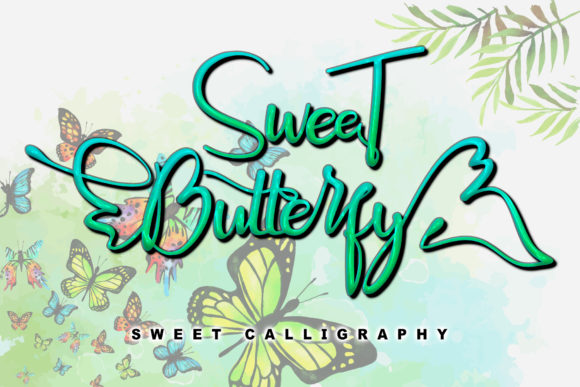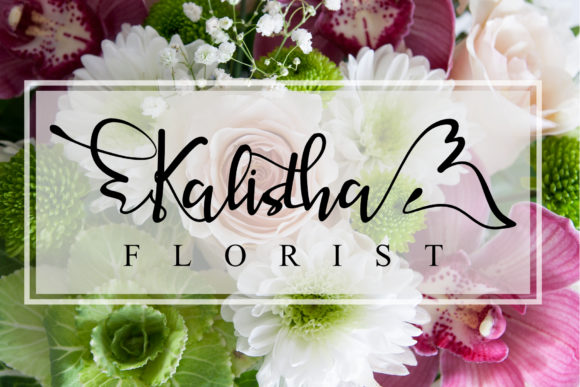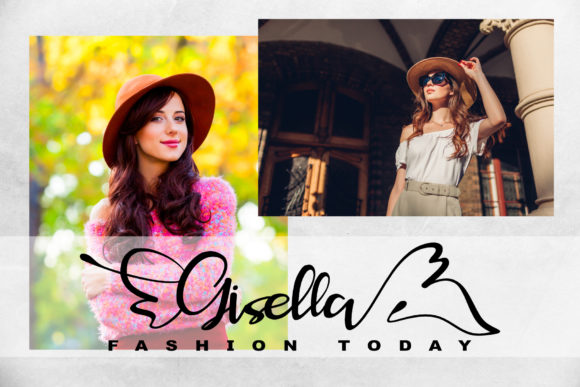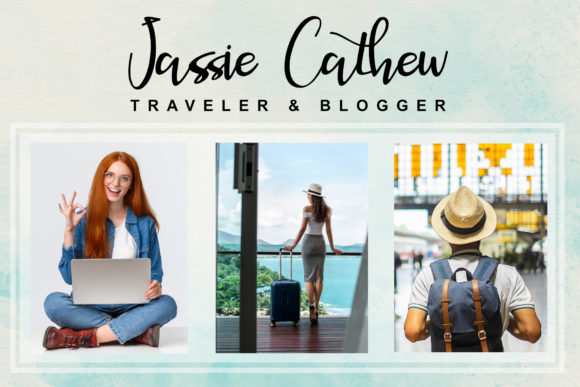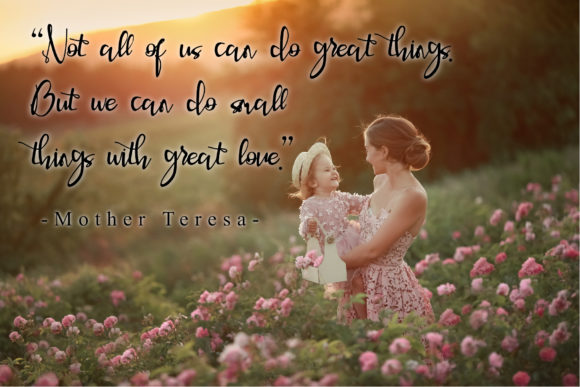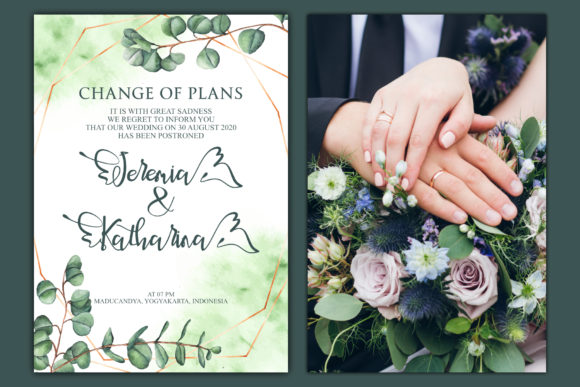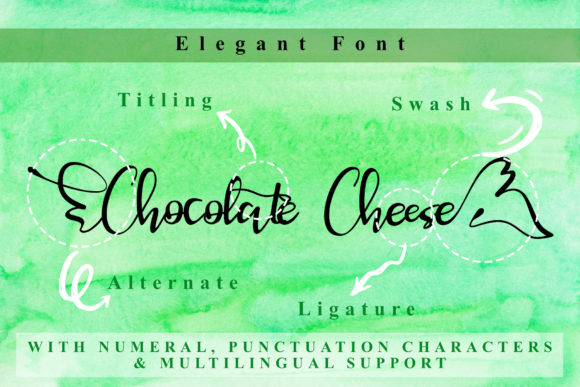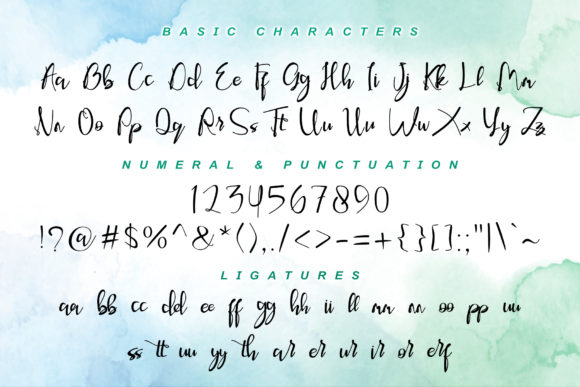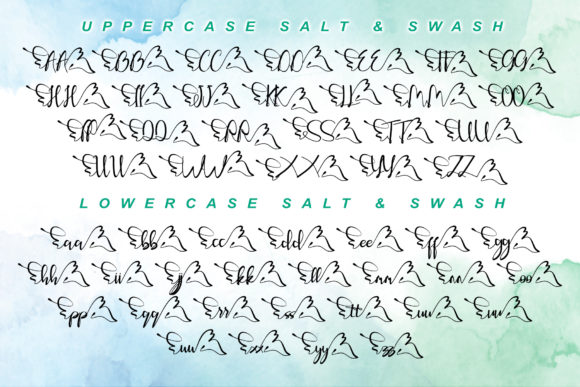
Sweet Butterfly Font
Sweet Butterfly is a beautiful and incredibly distinct handwritten font. It is PUA encoded which means you can access all of the glyphs and swashes with ease! It features a varying baseline, smooth lines, gorgeous glyphs and stunning alternates. Fall in love with its incredibly versatile style and use it to create gorgeous wedding invitations, beautiful stationary art, eye-catching social media posts, and much more!